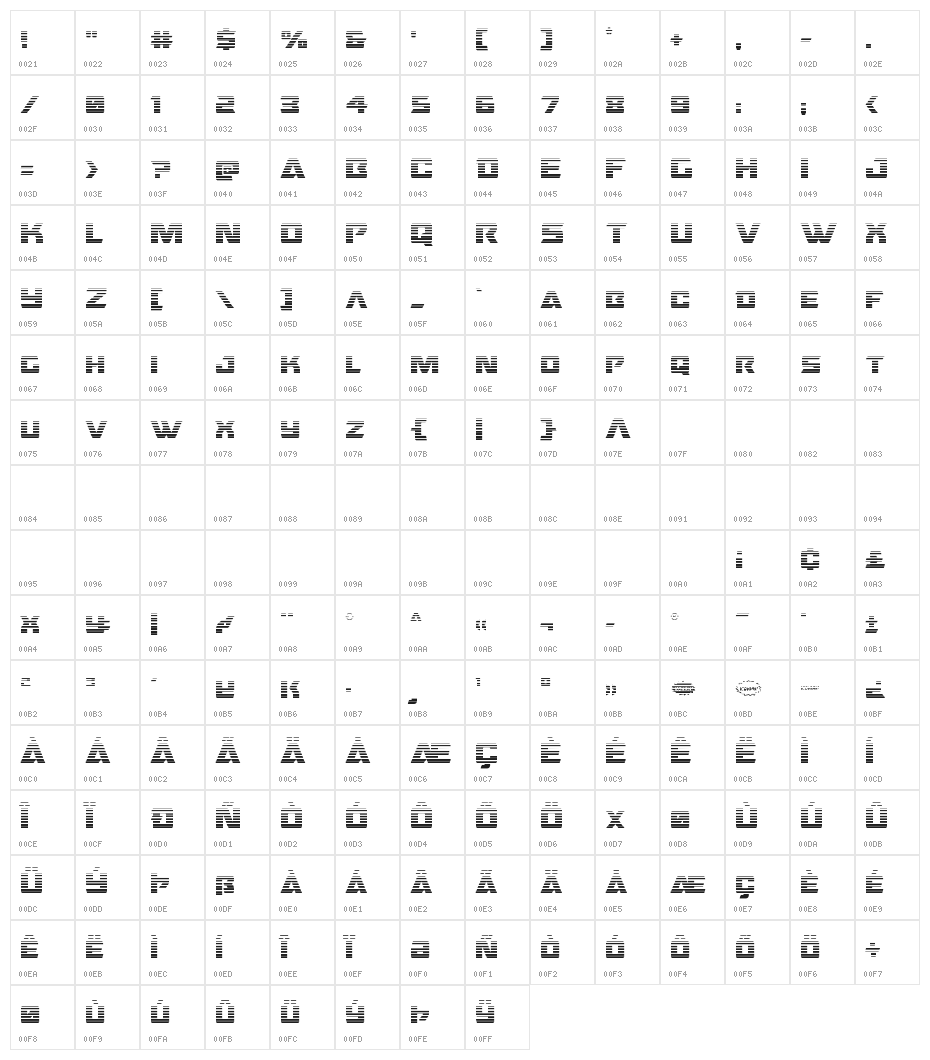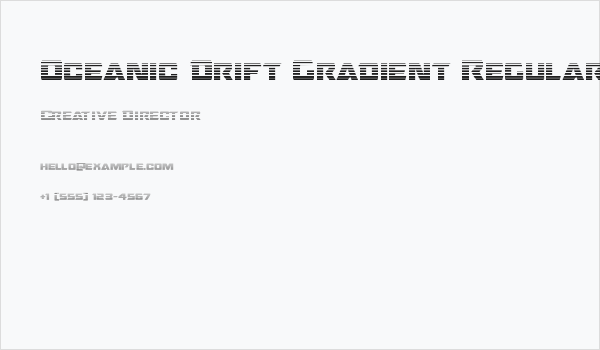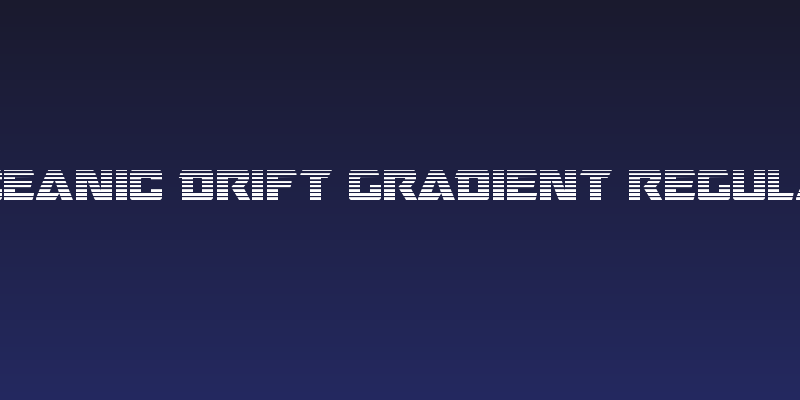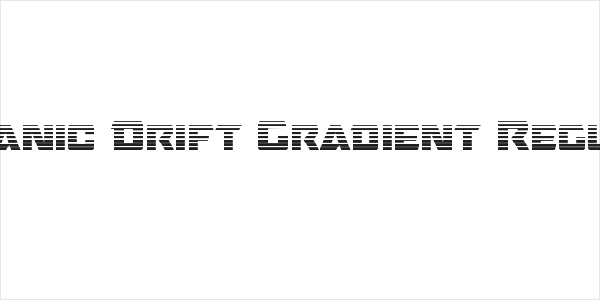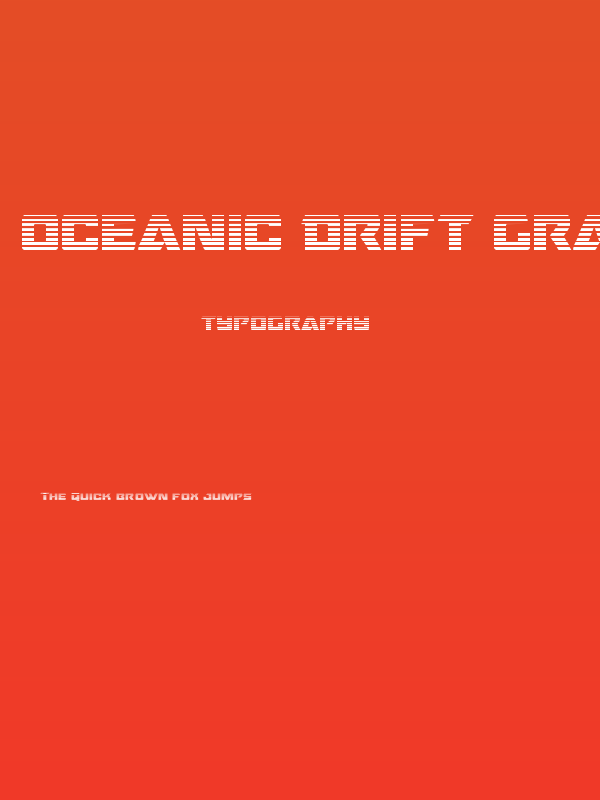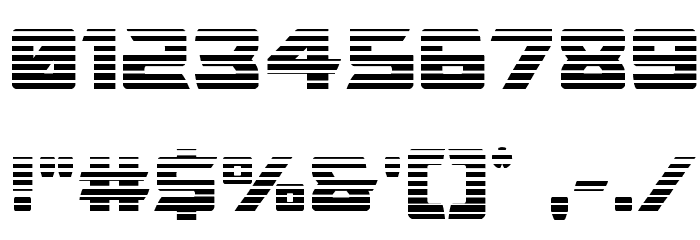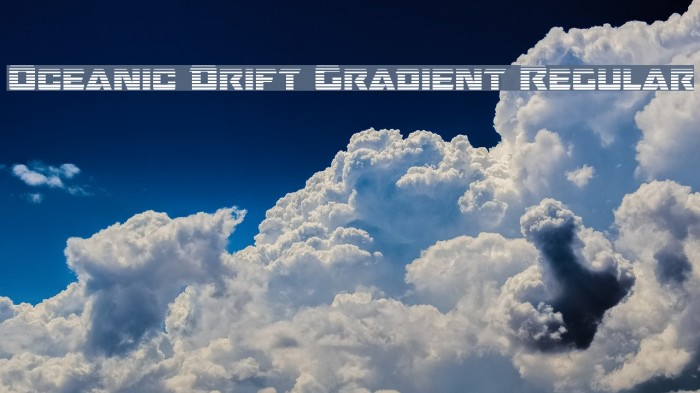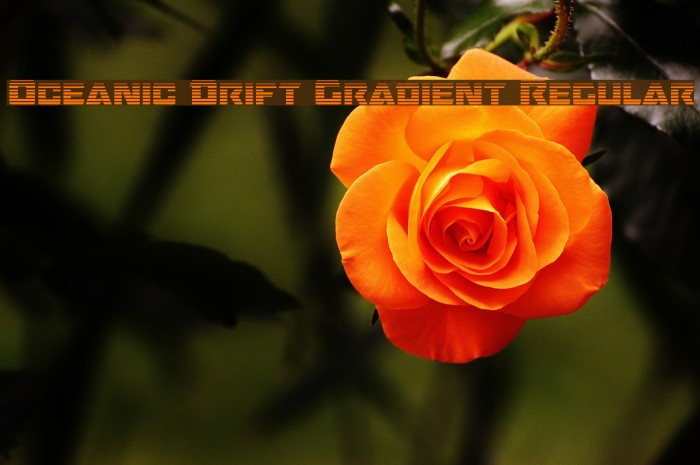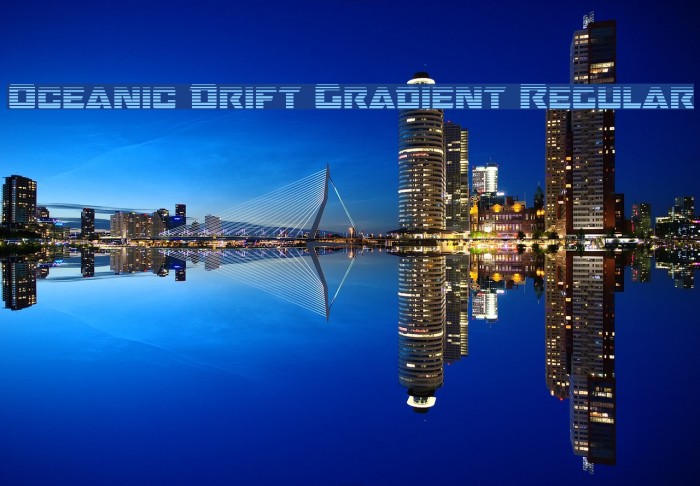
Oceanic Drift Gradient Regular Font
Oceanic Drift Gradient Regular Description
This font features a bold, futuristic design with a unique striped pattern running horizontally across each character. The uppercase letters are distinct and angular, giving a sense of movement and modernity. The lowercase letters maintain the same style, ensuring consistency throughout the typeface. Numbers and special characters are designed with the same striped effect, making them stand out while remaining cohesive with the overall aesthetic. This font's geometric and dynamic appearance makes it suitable for projects that require a modern and eye-catching look.
| Proposed Projects | Ideal for technology branding, sci-fi posters, video game titles, and modern advertising campaigns. |